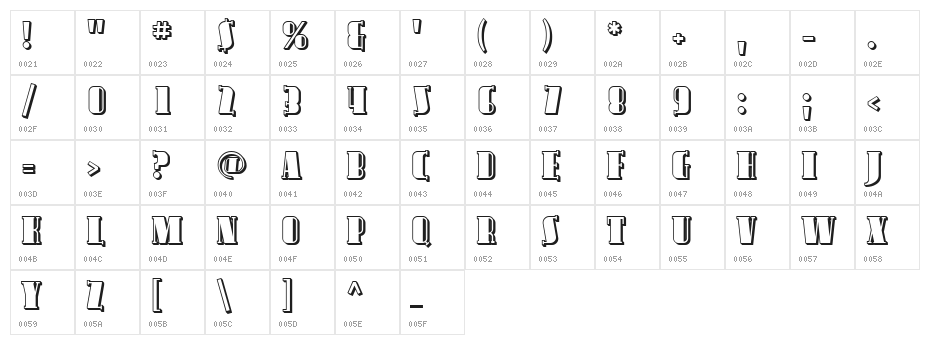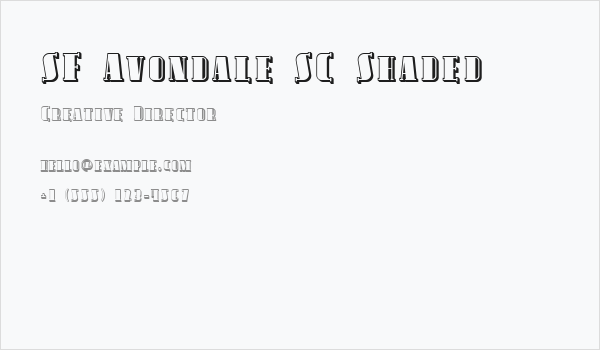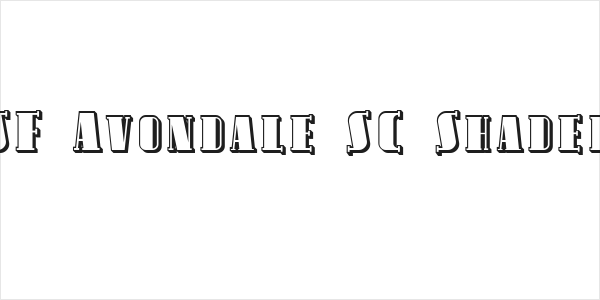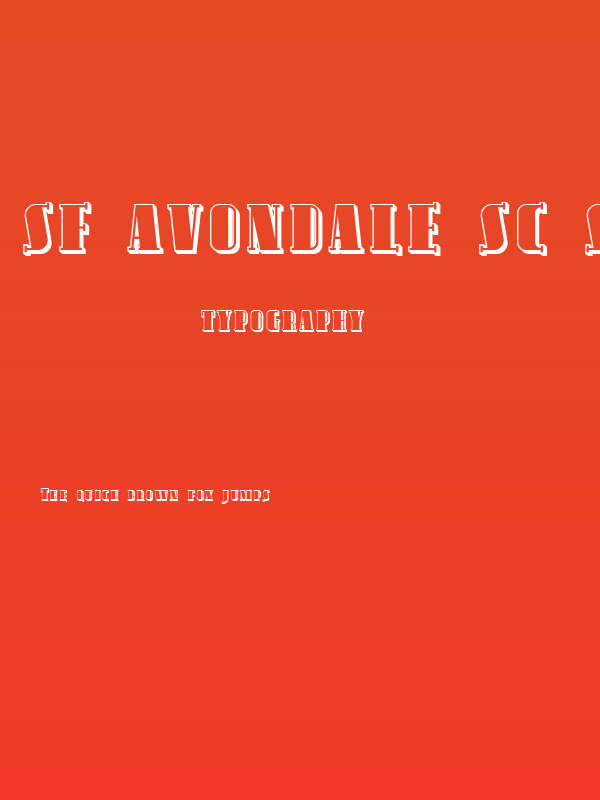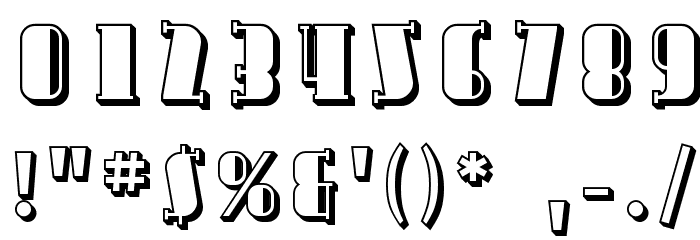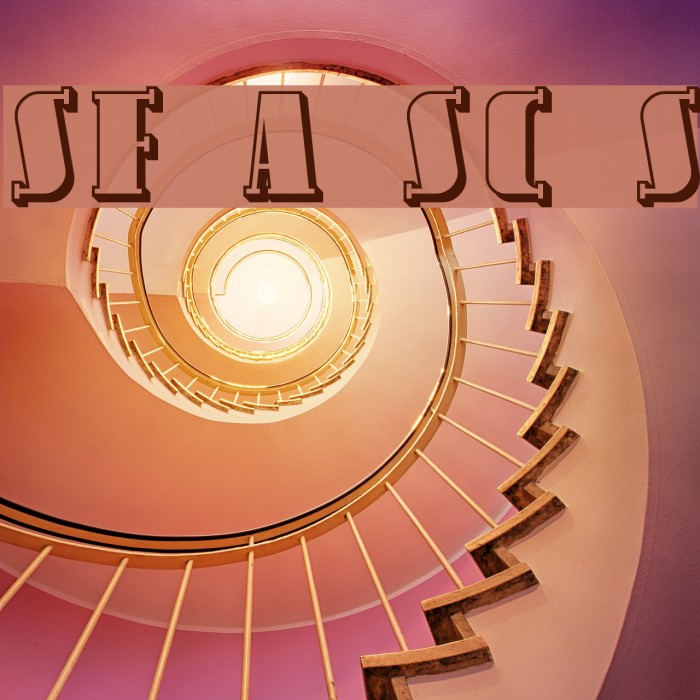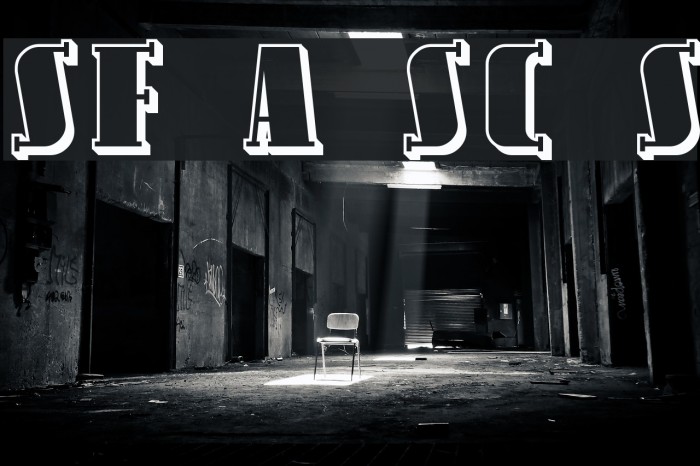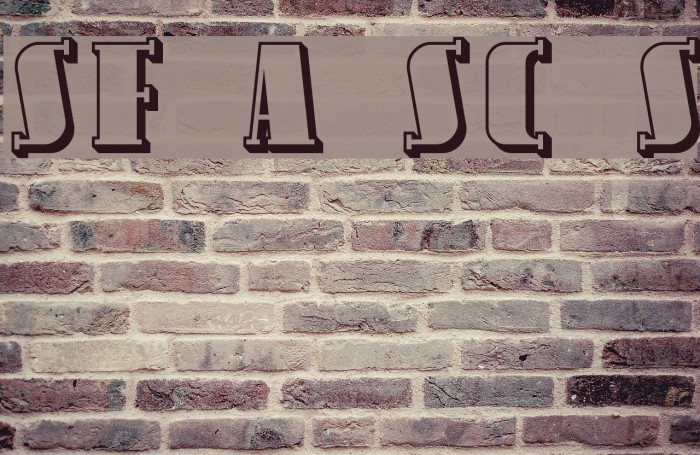
SF Avondale SC Shaded Font
This font features a bold and striking design with a three-dimensional shaded effect that gives it a unique, eye-catching appearance. The characters are uppercase and lowercase letters, numbers, and a variety of special symbols. Each letter is outlined with a shadow that adds depth and dimension, making it ideal for creating standout text. The style is reminiscent of vintage signage, with a modern twist that makes it suitable for contemporary designs. The font's strong presence and distinctive look make it perfect for projects that require a bold statement.
| Overall Style | Vintage, Modern |
| Proposed Projects | Perfect for posters, logos, headlines, and any design that requires a bold, attention-grabbing font. |